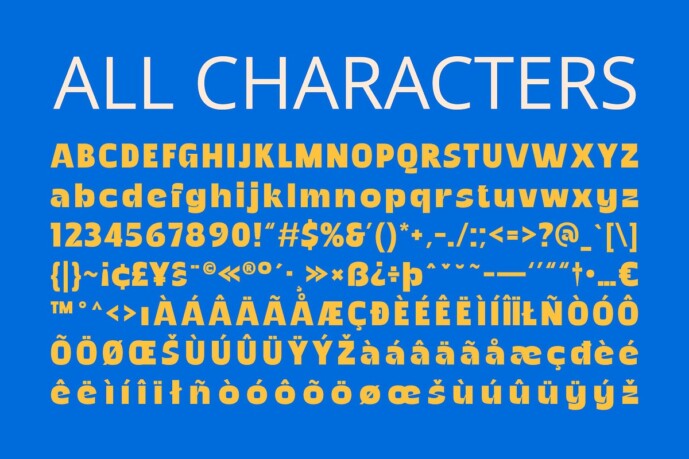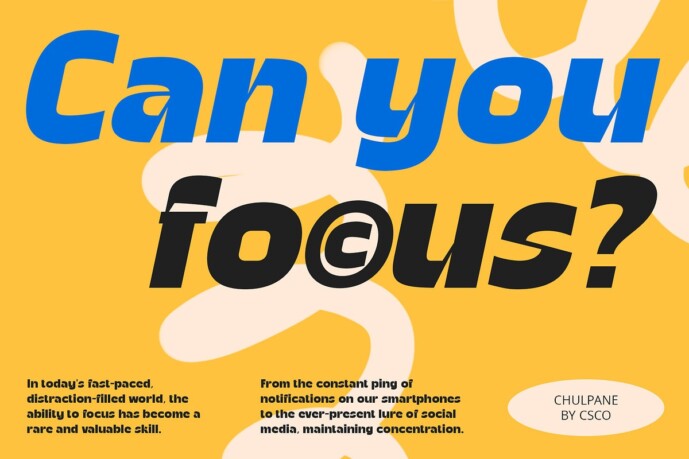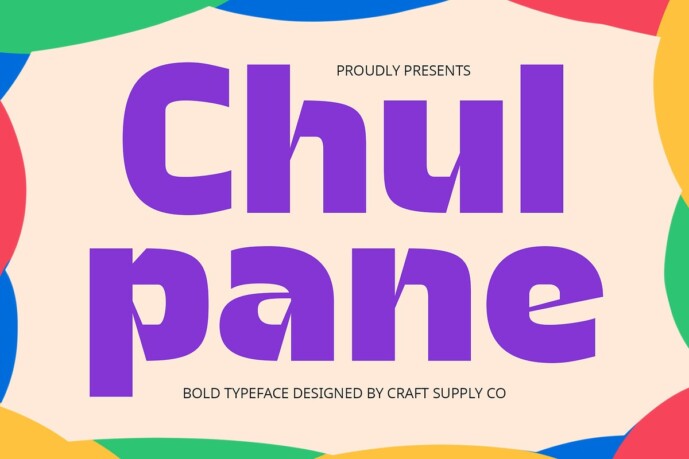
Chulpane Font
Designer: Craft Supply Co.
Chulpane Font is a bold sans serif font that exudes strength and clarity with its robust shapes. Ideal for making a bold statement in various designs, it ensures readability and impact.
Incorporating funky design elements, Chulpane adds a playful and creative touch to your projects. Each character is crafted to stand out, making it perfect for designs that aim to be distinctive and eye-catching.
Whether used in headlines, posters, or digital media, Chulpane adapts effortlessly. Its bold shapes and funky design elements make it suitable for diverse design applications, ensuring your message is bold and memorable.
With Chulpane, you can create designs that leave a lasting impression. Its combination of boldness and creativity makes it ideal for projects where uniqueness and impact are key.